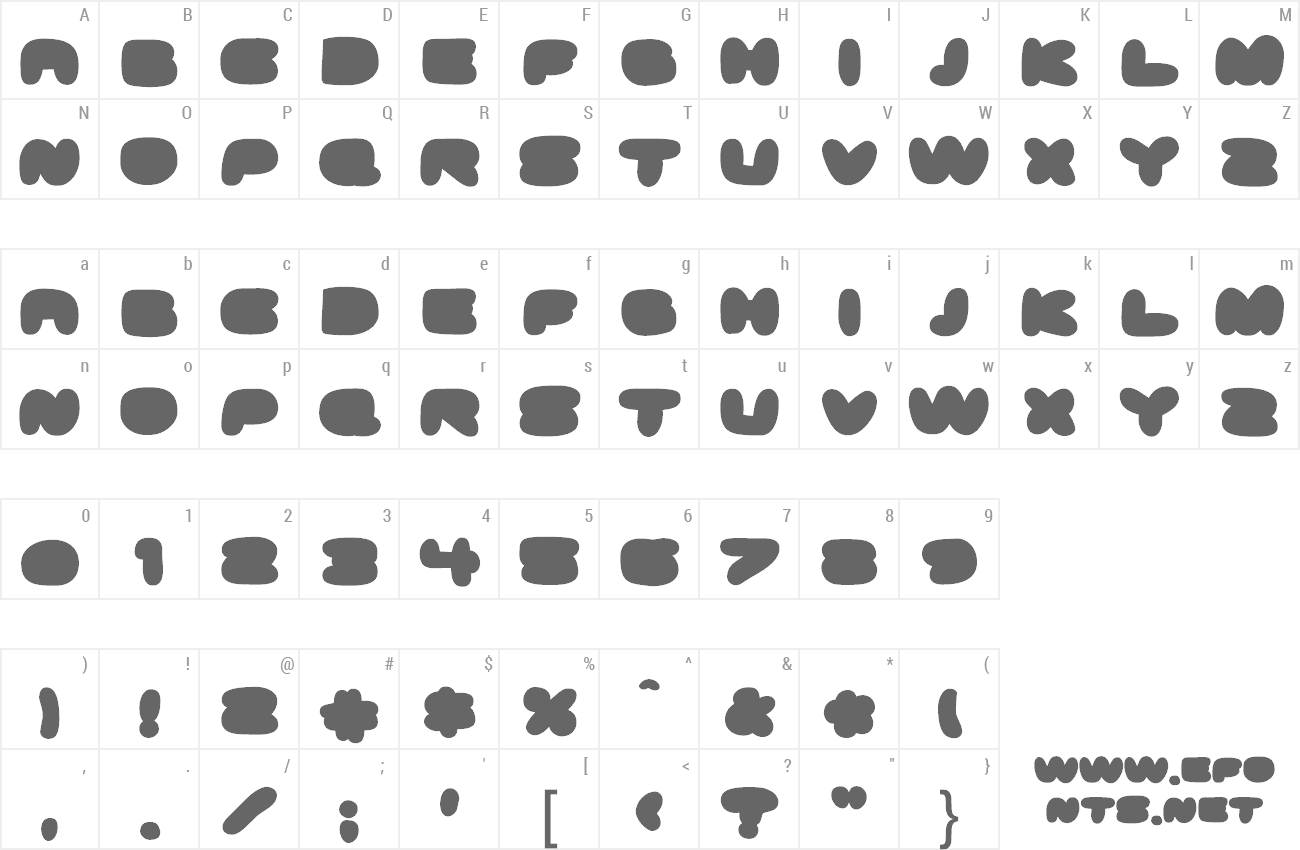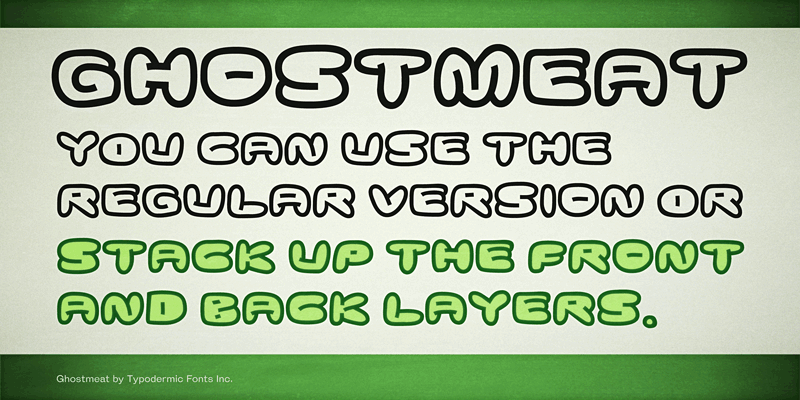
Preview and download Ghostmeat Font. Created by Typodermic Fonts in Fancy Cartoon styles with 100% Free license.
Ghostmeat is a hollow, cartoon font made out of phantasm cutlets. These fonts include a license that allows free commercial use: sometimes referred to as a desktop license. This allows you to install the fonts on a computer and use them to create posters, web graphics, game graphics, t-shirts, videos, signs, logos and more. Read the license agreement for details. If you'd like to embed these fonts in an app, ebook, on the web or anything that's not covered by the desktop license agreement, visit the link below. You'll find distributors who offer different types of licenses or you can contact me for help. http://typodermicfonts.com/ghostmeat/ |